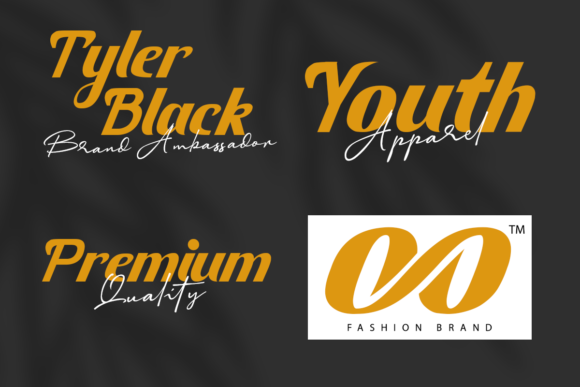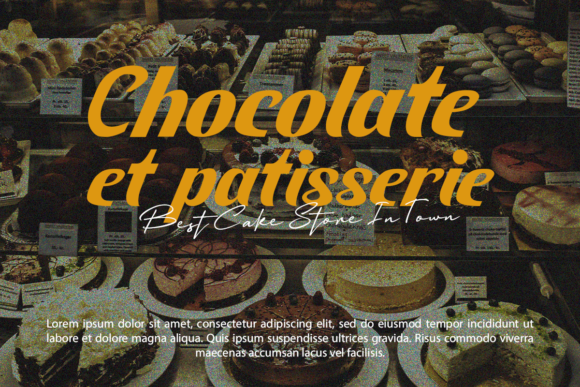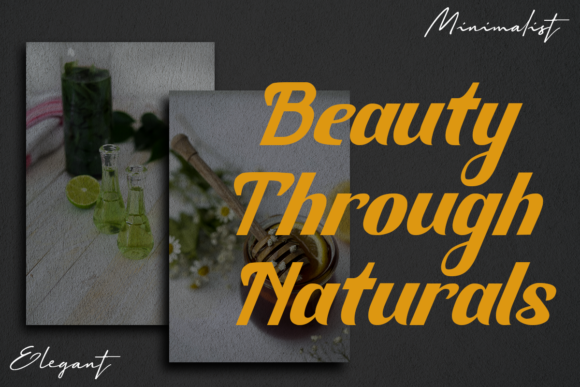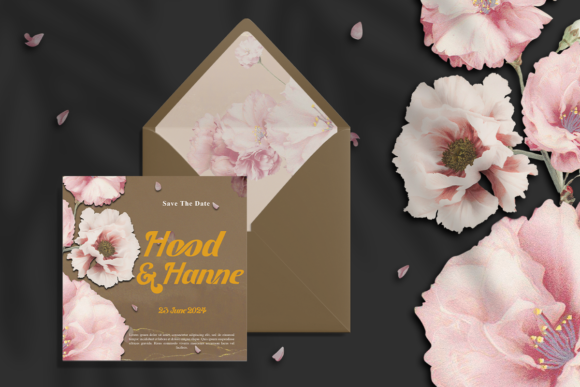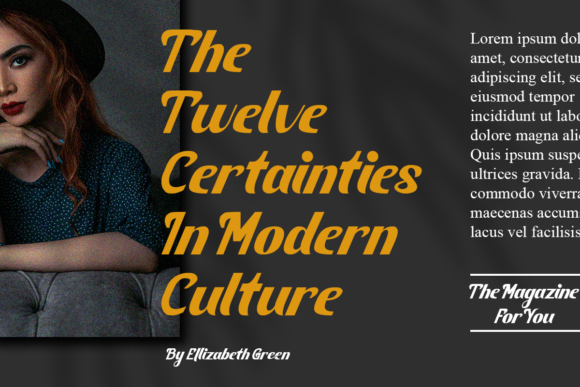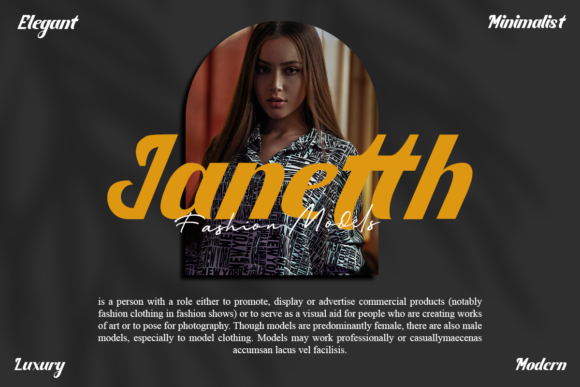
Introducing Bonjour Font: Elevate Your Designs with Elegance and Charm
Are you on the lookout for a font that exudes sophistication and style? Look no further than Bonjour Font, a stunning display font that is sure to add a touch of elegance to any creative project. With its well-rounded and easy-to-read design, Bonjour Font is the perfect choice for designers and crafters who want to make a statement.
The Characteristics of Bonjour Font
Bonjour Font is a stylish and sophisticated display font that embodies charm and elegance in every character. Its unique design makes it stand out from other fonts, and its versatility ensures that it can be used confidently for any creative project. Whether you’re working on a logo, a headline, or a body of text, Bonjour Font is sure to impress.
What Makes Bonjour Font So Special?
So, what sets Bonjour Font apart from other fonts? Here are just a few of its standout features:
- Elegant Design: Bonjour Font boasts an elegant design that is sure to add a touch of sophistication to any project.
- Well-Rounded Characters: The font’s well-rounded characters make it easy to read and understand, even at smaller sizes.
- Versatility: Bonjour Font is a versatile font that can be used for a wide range of creative projects, from logos and headlines to body text and more.
- Charming and Unique: The font’s unique design makes it stand out from other fonts, ensuring that your project will be noticed.
How to Use Bonjour Font in Your Designs
Bonjour Font is incredibly easy to use, and its versatility makes it suitable for a wide range of creative projects. Here are just a few ideas to get you started:
- Logos and Branding: Use Bonjour Font to create a stunning logo or brand identity that exudes elegance and sophistication.
- Headlines and Titles: Add a touch of glamour to your headlines and titles with Bonjour Font, perfect for magazines, newspapers, and online publications.
- Body Text: While Bonjour Font is a display font, it’s also easy to read, making it suitable for body text in certain design projects.
- Digital and Print Materials: Use Bonjour Font in a wide range of digital and print materials, from brochures and flyers to social media graphics and more.
Tips for Getting the Most Out of Bonjour Font
To get the most out of Bonjour Font, here are a few tips to keep in mind:
- Experiment with Sizes: Don’t be afraid to experiment with different sizes to find the perfect fit for your project.
- Pair with Other Fonts: Bonjour Font pairs well with other fonts, so don’t be afraid to get creative and try out different combinations.
- Use it Sparingly: While Bonjour Font is a stunning font, it’s best used sparingly to avoid overwhelming the reader.
| Font Name | Bonjour Font |
| Author | DisplayStudio_ |